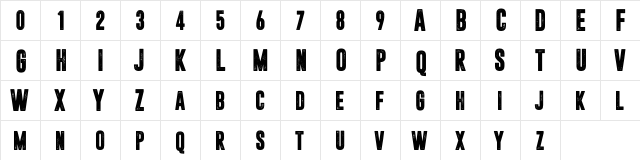
Dreamwalker Regular
Design Context for Dreamwalker Typeface
Dreamwalker is a composed and adaptable typeface that performs quietly and consistently across a wide range of design contexts.